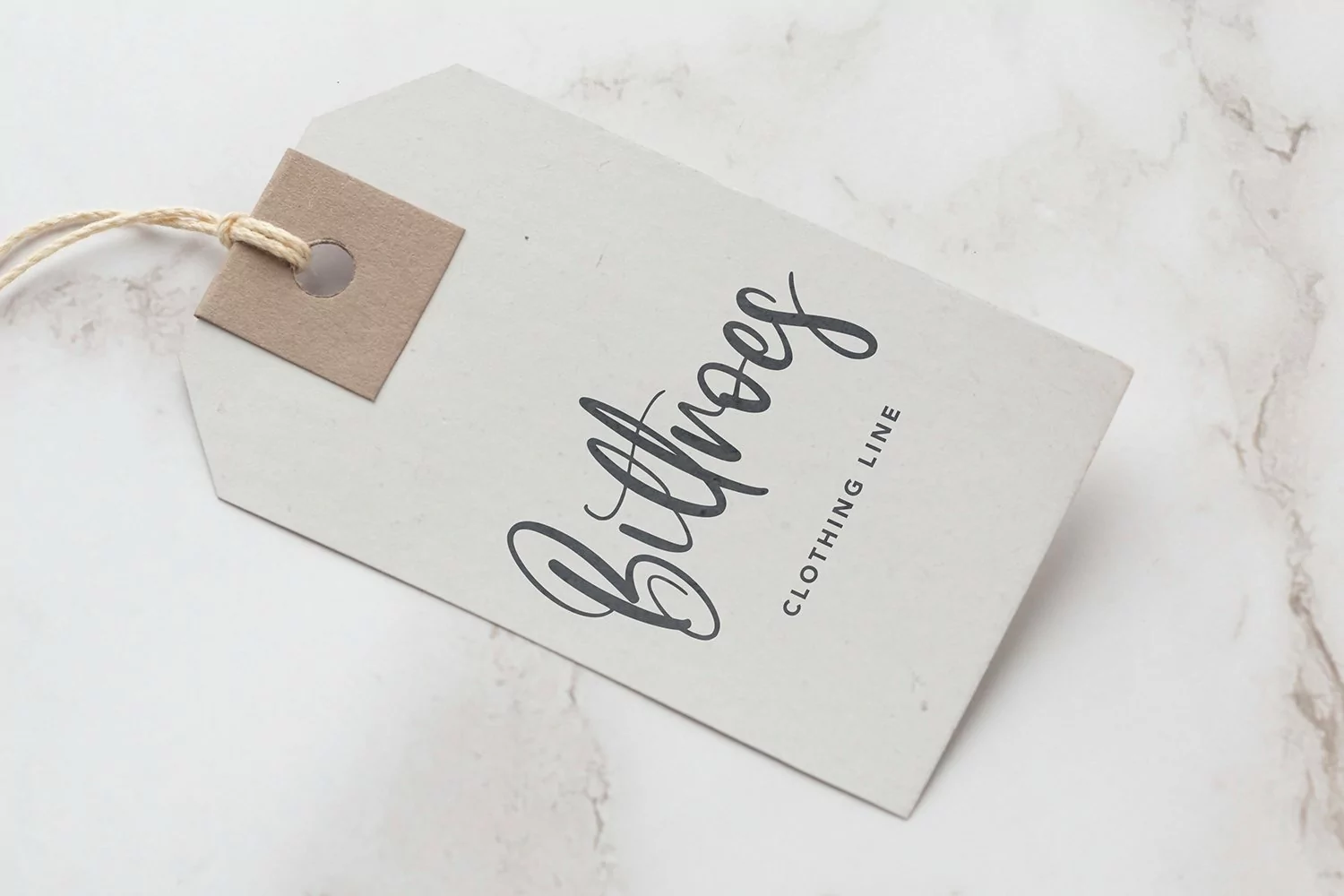
HolidayVacation - Cute & Beauty Script Font that contain lowercase, uppercase, symbol, and also support multi language. There’s a lot ligatures in this font. This Font also comes with ligatures, alternates and many more. this font suitable for fashion, branding, catalog and other design what you want.